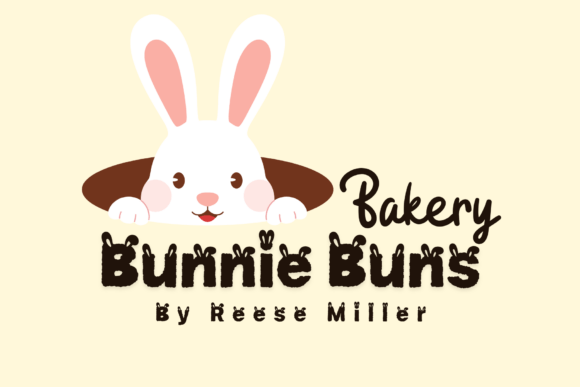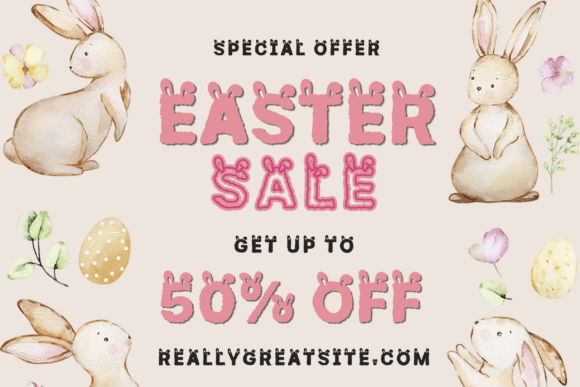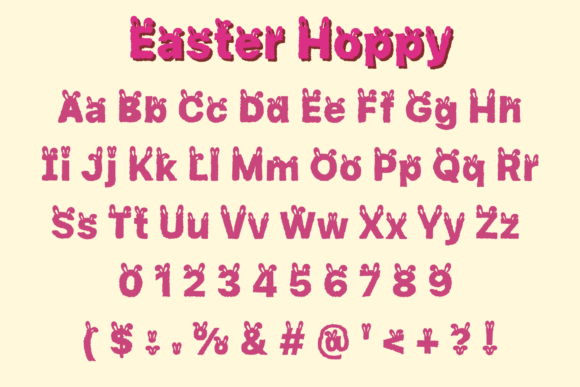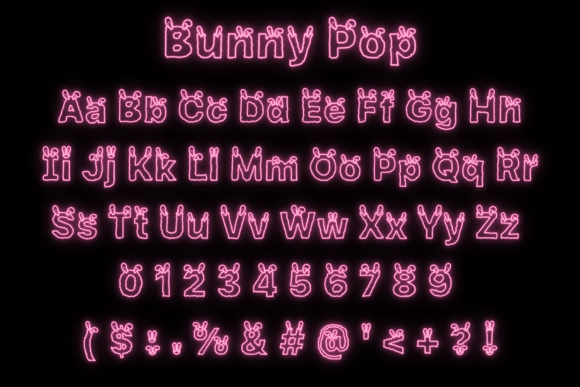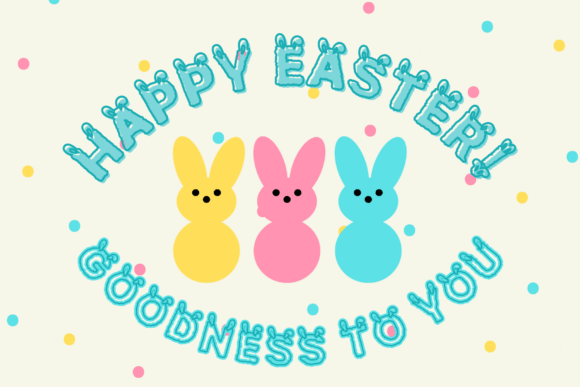
Bring Your Designs to Life with Easter Hoppy Font π°
Are you looking for a fun and playful font to add a touch of Easter magic to your designs? Look no further than the Easter Hoppy Font! This adorable bunny-inspired typeface is perfect for Easter-themed projects, kids’ designs, and fun creative works. With its cute bunny ear details on every letter, this font is sure to bring a smile to anyone’s face. π
What Makes Easter Hoppy Font So Special? π
The Easter Hoppy Font is a unique and charming typeface that features cute bunny ear details on every letter. This playful and fluffy font is perfect for adding a joyful and charming touch to your designs. Whether you’re creating greeting cards, party invitations, t-shirts, stickers, or Cricut crafts, this font is sure to make your designs stand out. π
Perfect for Easter-Themed Projects π₯
Easter is just around the corner, and with the Easter Hoppy Font, you can create adorable Easter-themed projects that will delight kids and adults alike. From Easter egg hunt invitations to Easter basket labels, this font is perfect for adding a touch of Easter magic to your designs. You can use it to create:
- Easter greeting cards
- Easter party invitations
- Easter basket labels
- Easter egg hunt signs
- Easter-themed stickers and decals
Kids’ Designs and Fun Creative Works π¨
The Easter Hoppy Font is not just limited to Easter-themed projects. Its playful and fun design makes it perfect for kids’ designs and fun creative works. You can use it to create:
- Kids’ party invitations
- Kids’ birthday cards
- Fun and playful stickers and decals
- Cricut crafts for kids
- DIY kids’ decorations
Adding a Hop of Cuteness to Your Creations π°
The Easter Hoppy Font is designed to add a hop of cuteness to your creations. With its cute bunny ear details on every letter, this font is sure to make your designs stand out. Whether you’re a designer, crafter, or DIY enthusiast, this font is perfect for adding a touch of whimsy and fun to your projects.
Tips and Tricks for Using Easter Hoppy Font π
Here are some tips and tricks for using the Easter Hoppy Font:
- Use it with bright and pastel colors to create a fun and playful design
- Pair it with other Easter-themed graphics and illustrations
- Experiment with different font sizes and styles to create a unique look
- Use it to create a cohesive look across multiple designs
Get Ready to Hop into Fun with Easter Hoppy Font! π
Bring your designs to life with this adorable bunny-inspired font! π° This playful and fluffy typeface features cute bunny ear details on every letter, making it perfect for Easter-themed projects, kids designs, and fun creative works. Whether youβre creating greeting cards, party invitations, t-shirts, stickers, or Cricut crafts, this font adds a joyful and charming touch to your designs. Add a hop of cuteness to your creations with this unique bunny font! ππ